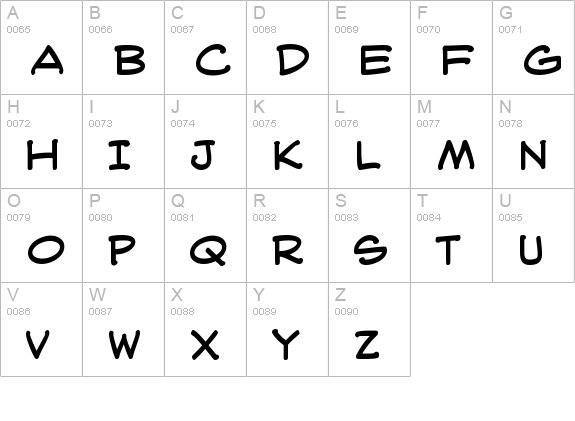
WebLetterer BB Font Details
Introducing WebLetterer BB, a stunning and versatile font that will bring a touch of elegance and sophistication to your web designs. This font is the perfect choice for any project that requires a refined and stylish look. WebLetterer BB features a clean and modern design, with beautifully crafted letterforms that will captivate your audience. Its smooth curves and well-balanced proportions make it highly legible, ensuring that your messages are conveyed effortlessly. One of the most remarkable aspects of WebLetterer BB is that it is freely available to download at FontsMarket.com. This means that you can enhance your web creations with this exceptional font without any cost. Whether you are designing a website, creating a blog, or developing an online portfolio, WebLetterer BB will elevate your content to new heights. Its versatility allows it to be used in various contexts, from headlines and titles to body text and captions. With its wide range of characters and extensive language support, WebLetterer BB is a font that can accommodate any project and cater to diverse audiences. Its attention to detail and meticulous craftsmanship make it a true gem in the world of web typography. Don't miss the opportunity to add WebLetterer BB to your font collection. Download it for free at FontsMarket.com and unlock a world of creative possibilities for your web designs. Experience the elegance and sophistication that this font brings and make your online presence truly memorable.